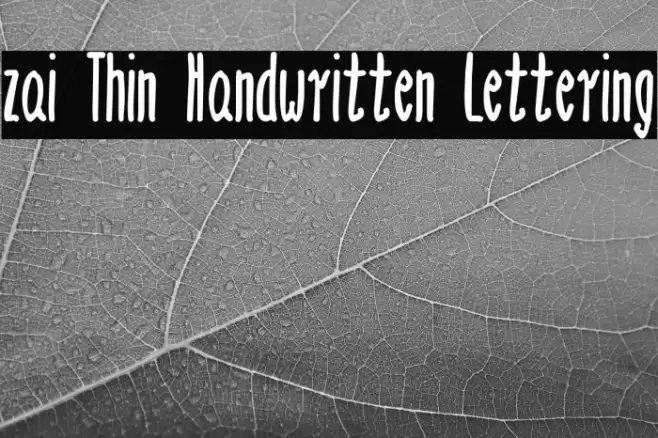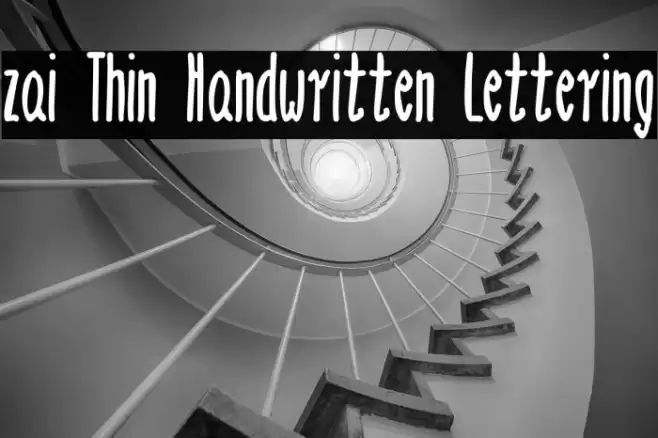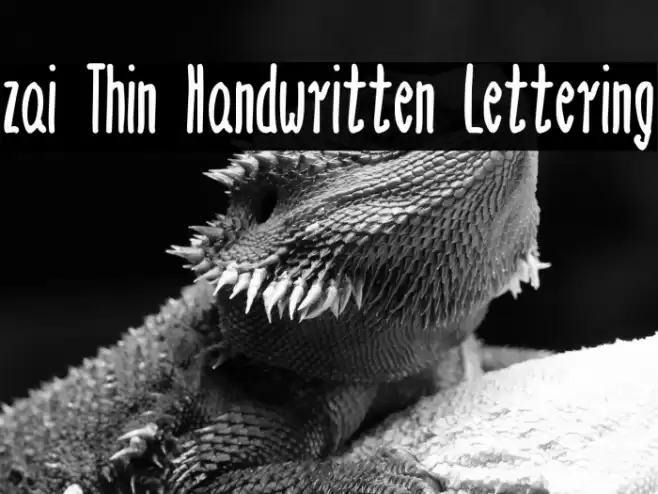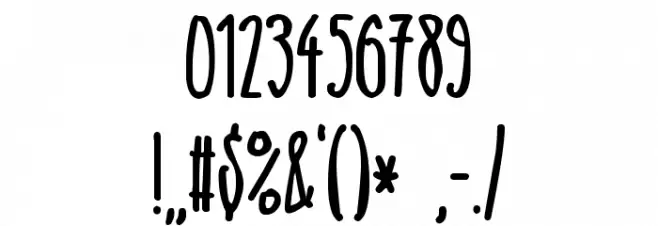
zai Thin Handwritten Lettering Font
zai Thin Handwritten Lettering Description
This font features a thin, handwritten style that exudes a casual and playful vibe. The letters are elongated with a slight slant, giving them a dynamic and lively appearance. The uppercase and lowercase letters maintain a consistent flow, while the numbers are clear and easy to read. Special characters are included, adding versatility for various uses. The overall design is organic and free-spirited, making it suitable for projects that require a personal touch.
A thin, handwritten font with a playful and dynamic style from Regular fonts.
- Font: zai Thin Handwritten Lettering
- Proposed Projects: Ideal for greeting cards, personal branding, social media graphics, and informal invitations.
- Weight: Light
- Overall Style: Casual and playful
- Use Case: Logos, headlines, and decorative text.